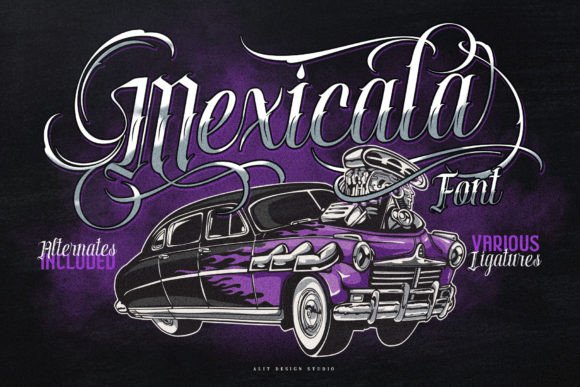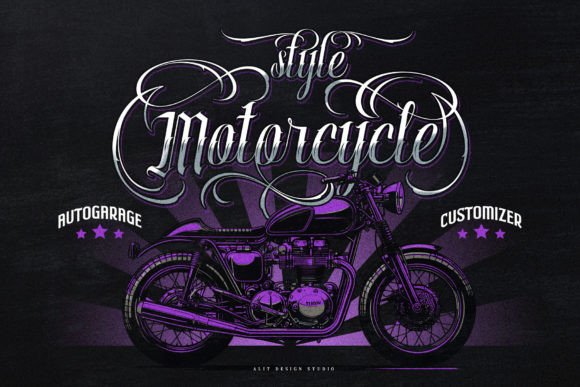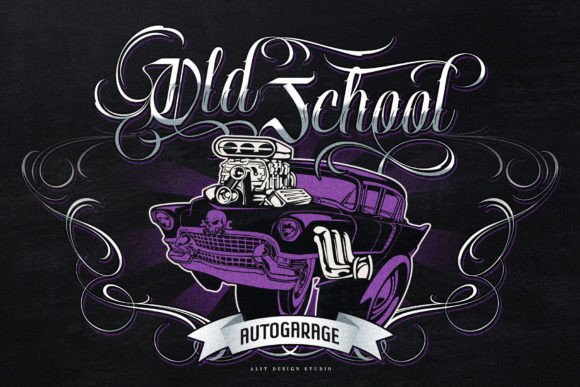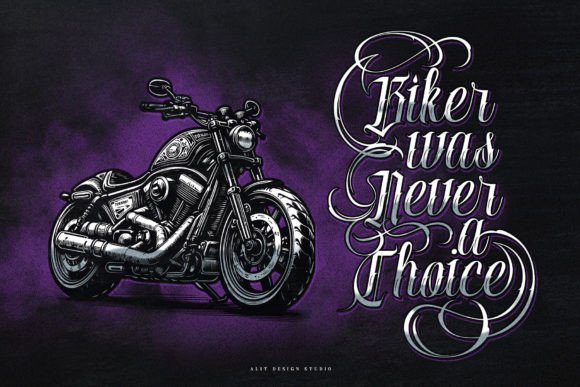
Mexicala Font: A Bold Script for Edgy Tattoo & Logo Design
About the Mexicala Font
Unleash your creativity with Mexicala Font, a versatile font perfect for a wide range of applications. Step into a world where tradition meets rebellion with Mexicala, a meticulously crafted font that embodies the spirit of Mexican gangster culture and the timeless art of tattoo scripts. Designed for those who appreciate the bold and intricate, Mexicala is your go-to font for projects that demand authenticity and edge.
Mexicala thrives in headlines, short impactful statements, and branding applications where a strong, rebellious aesthetic is desired. Its intricate details shine in posters, logos, and packaging designs, particularly for products with a vintage or edgy feel. Avoid using it for body text or UI elements; its weight and detail would hinder readability in extended passages.
Consider pairing Mexicala with a clean sans-serif like Montserrat for a balanced contrast, or a geometric sans-serif like Futura for a more modern feel. A simple serif like Garamond can provide a sophisticated counterpoint if a touch of classic elegance is needed.
The font’s personality is undeniably bold and rebellious, yet retains a handcrafted authenticity. It’s ideal for projects seeking a gritty, street-smart aesthetic, aligning perfectly with brands emphasizing strength, individuality, and a touch of danger.